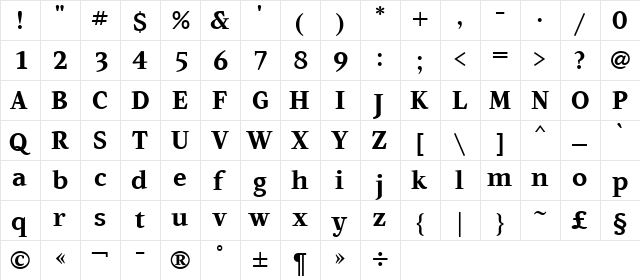
Artemius TT Bold
Design Context for Artemius TT Typeface
Artemius TT is a composed and adaptable typeface that performs quietly and consistently across a wide range of design contexts. Its bold stroke weight gives it real presence on the page.